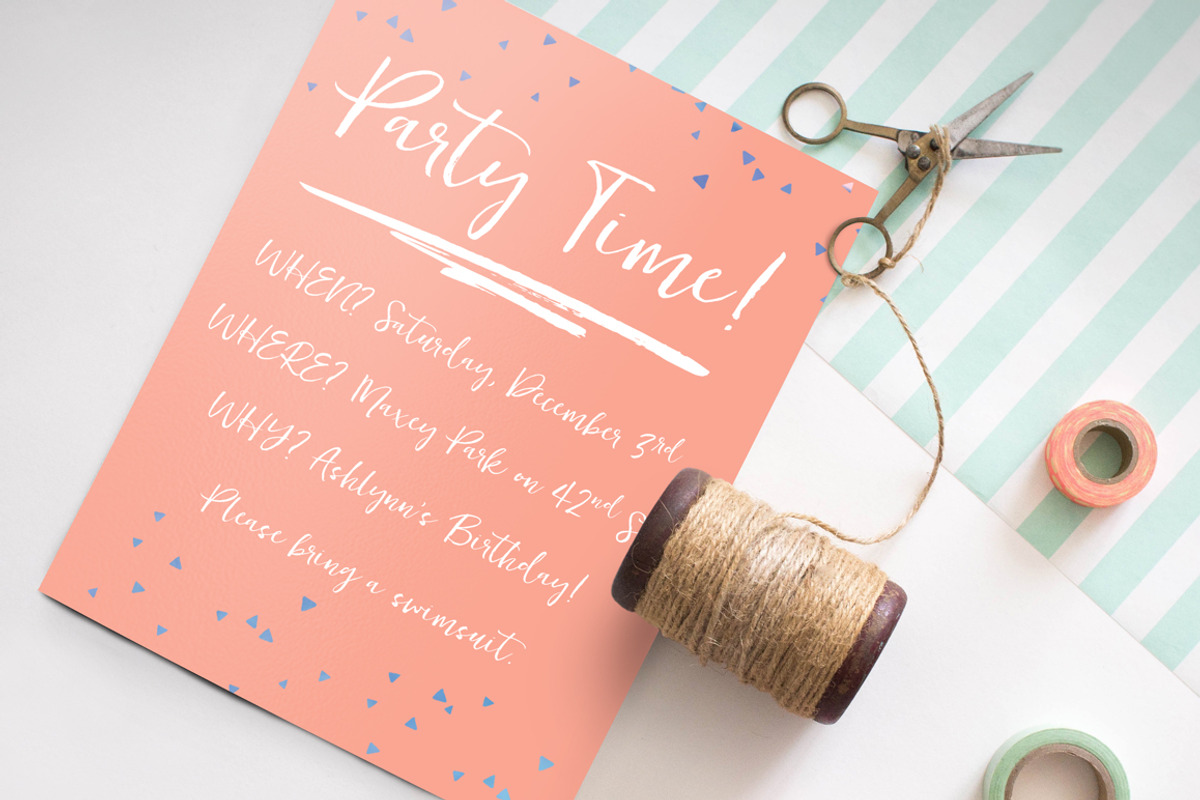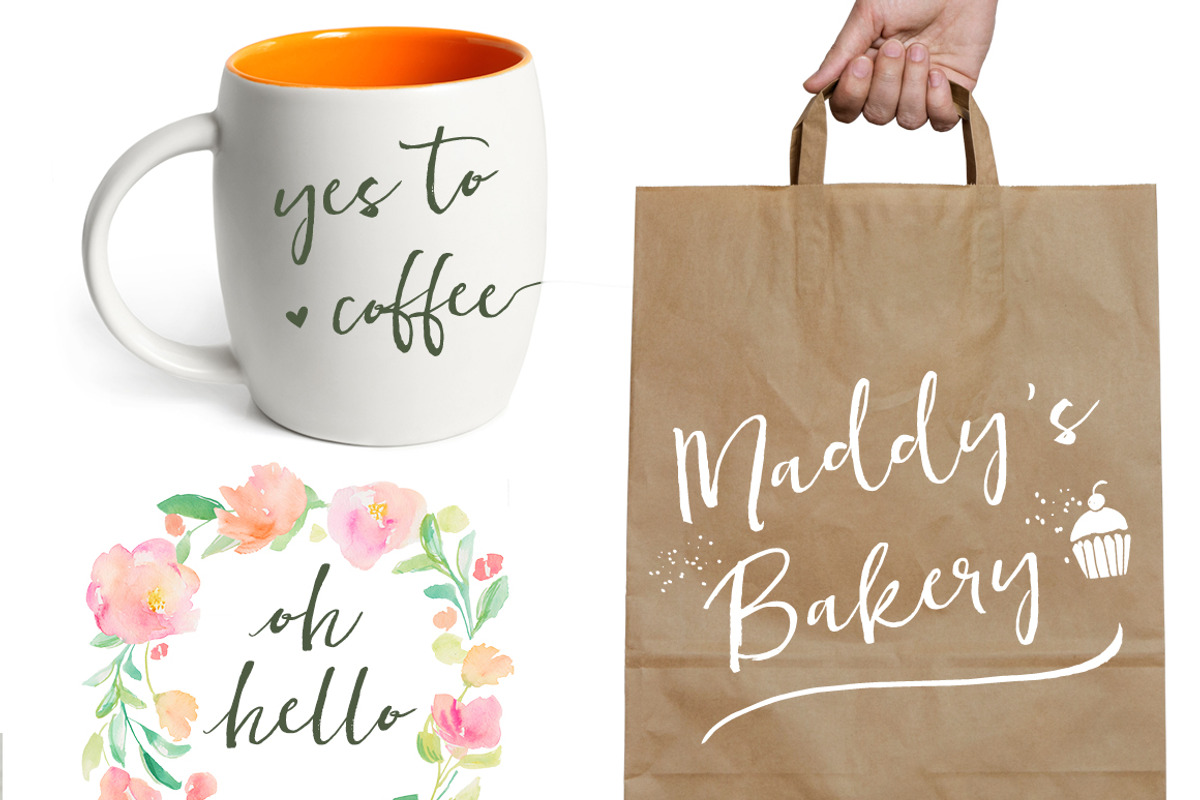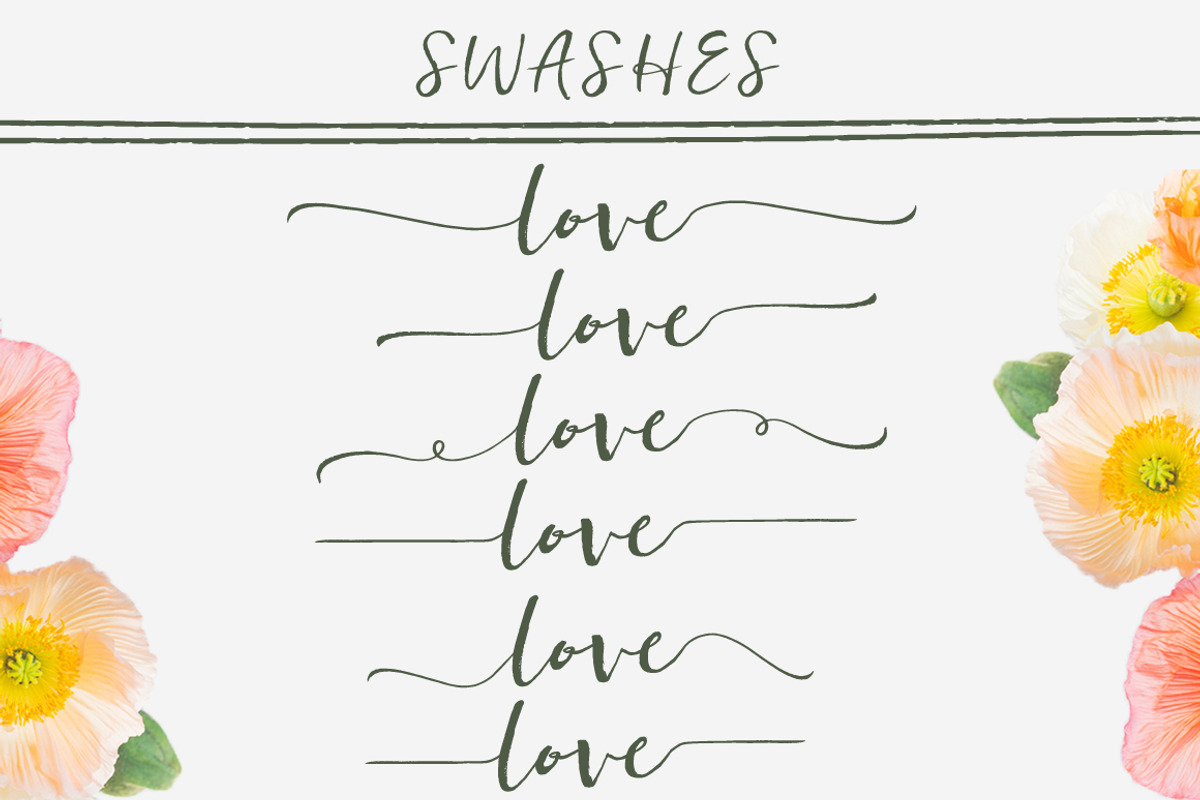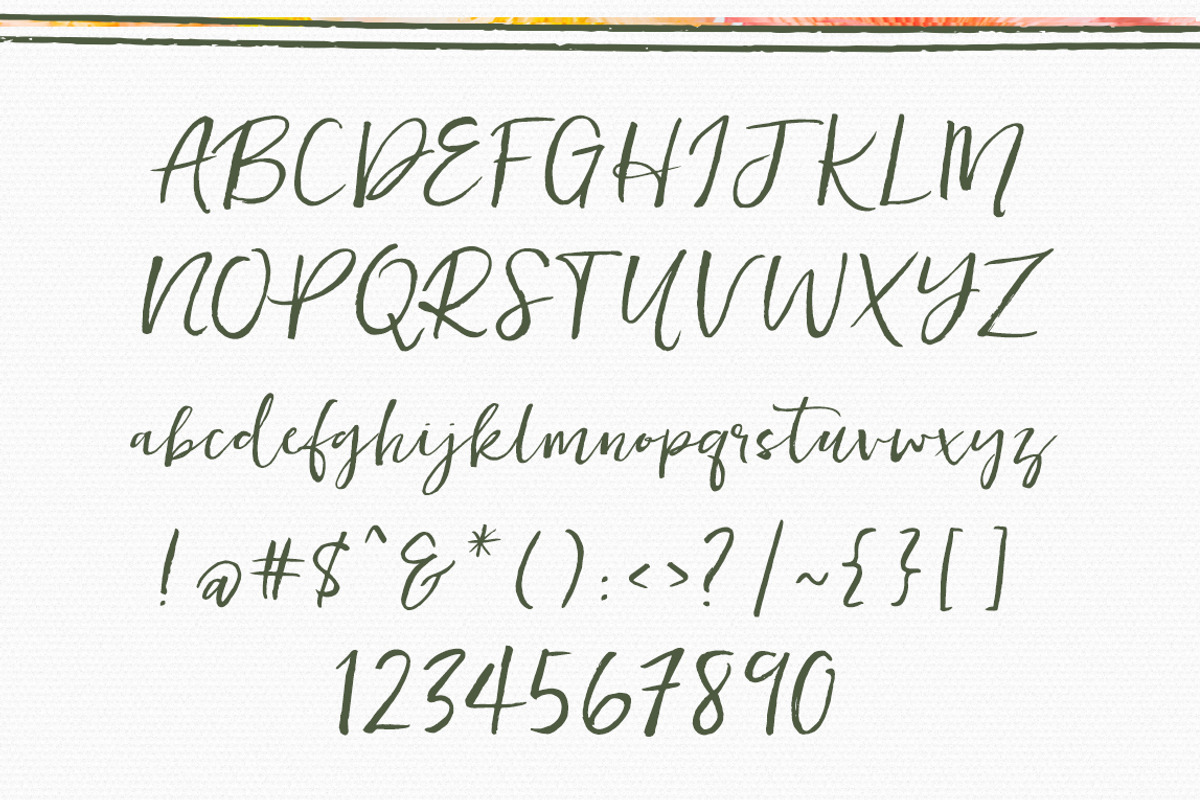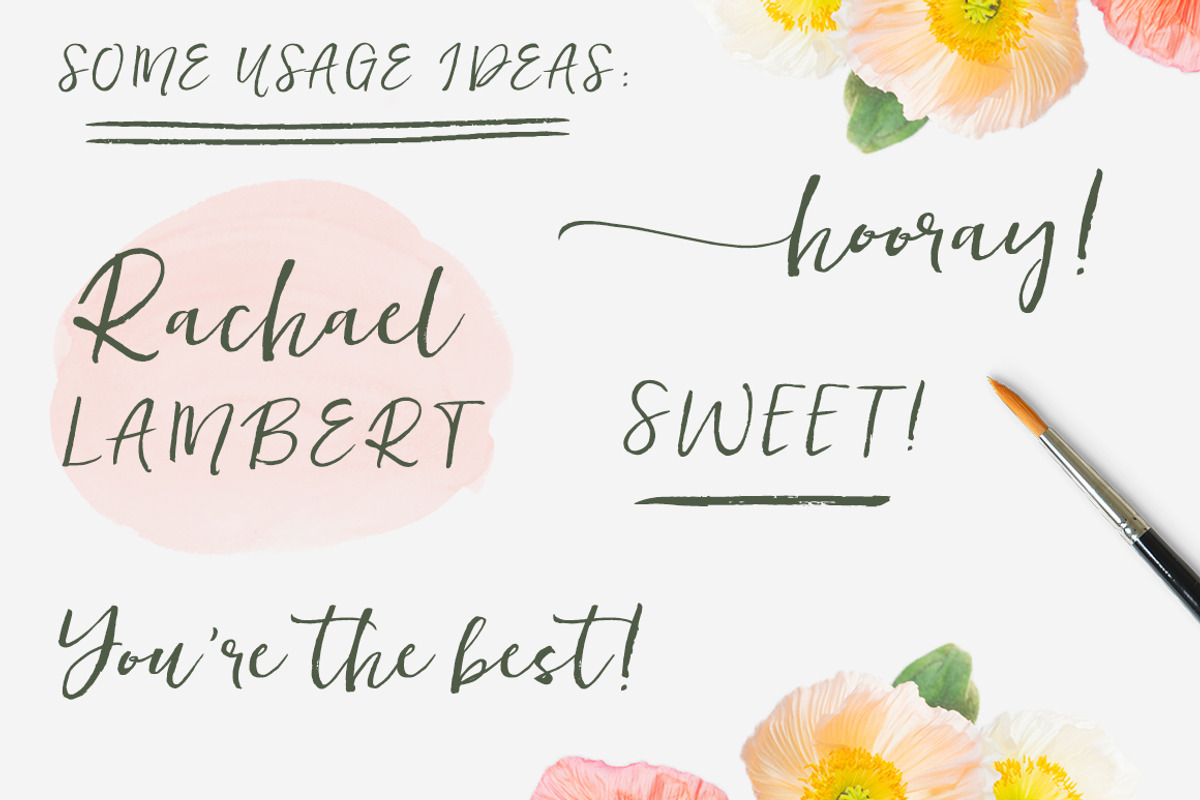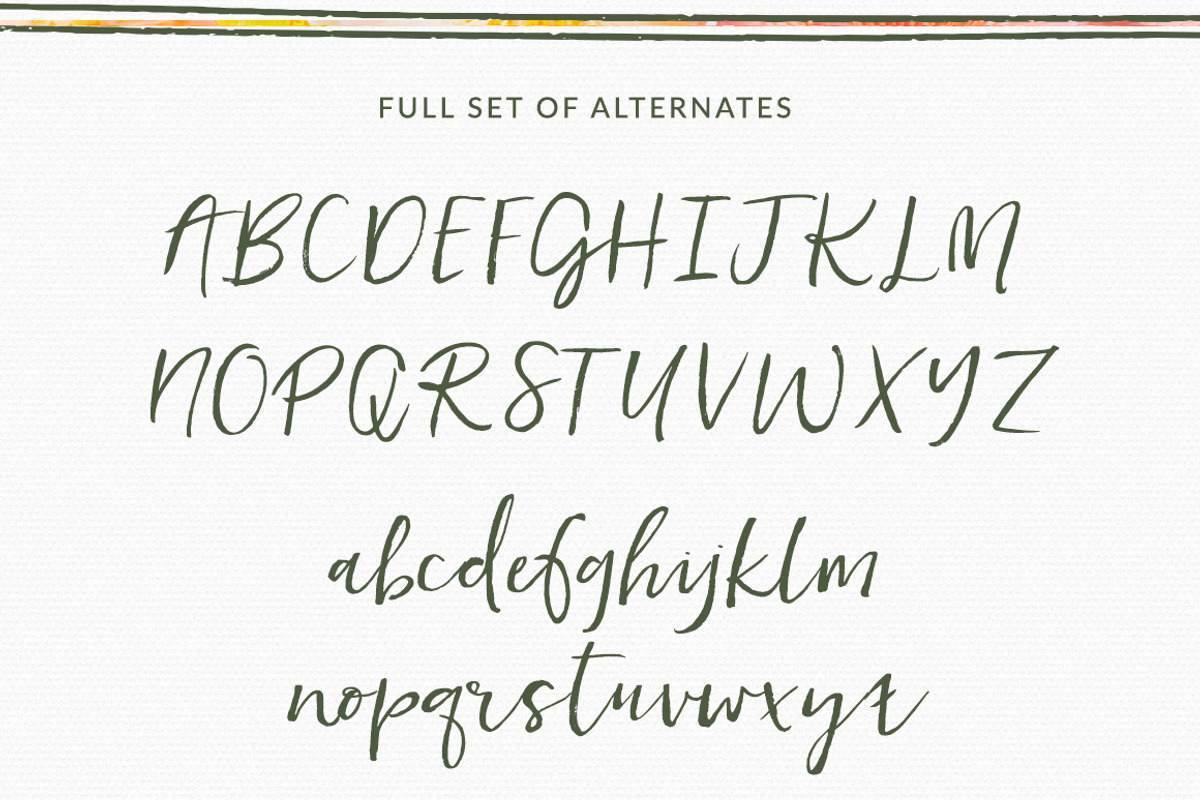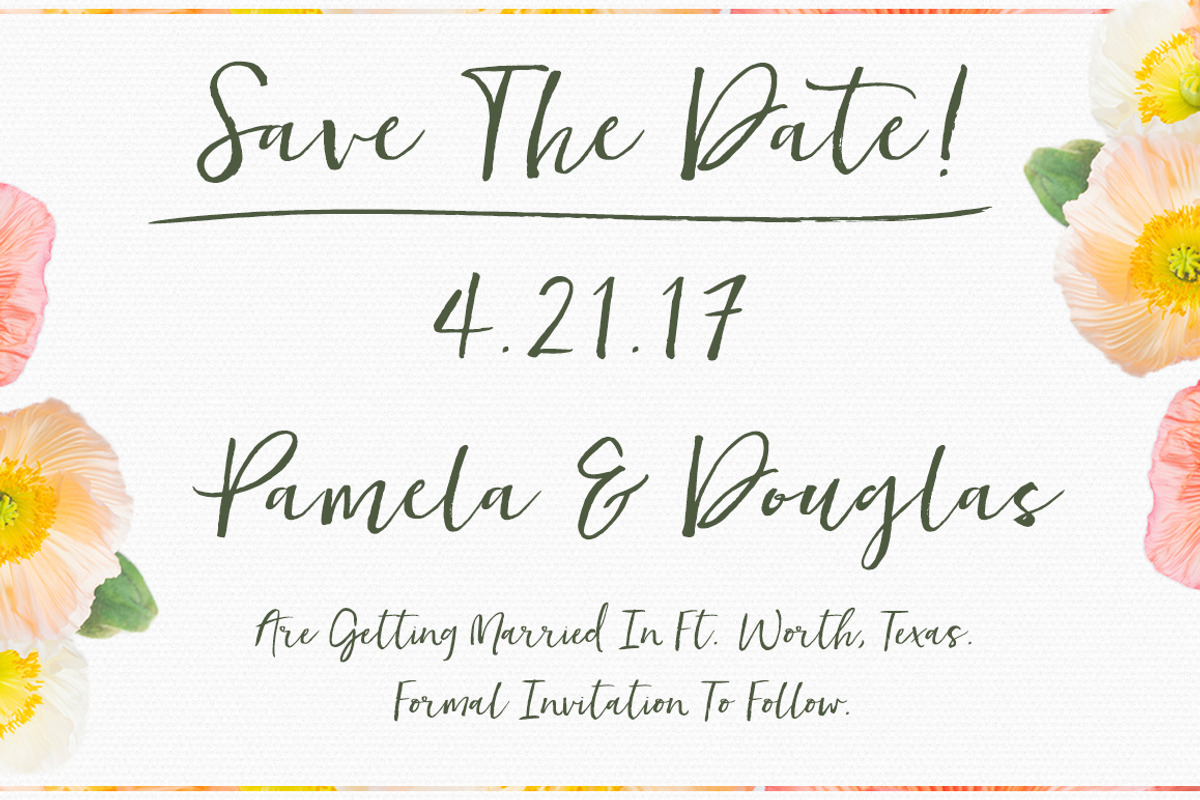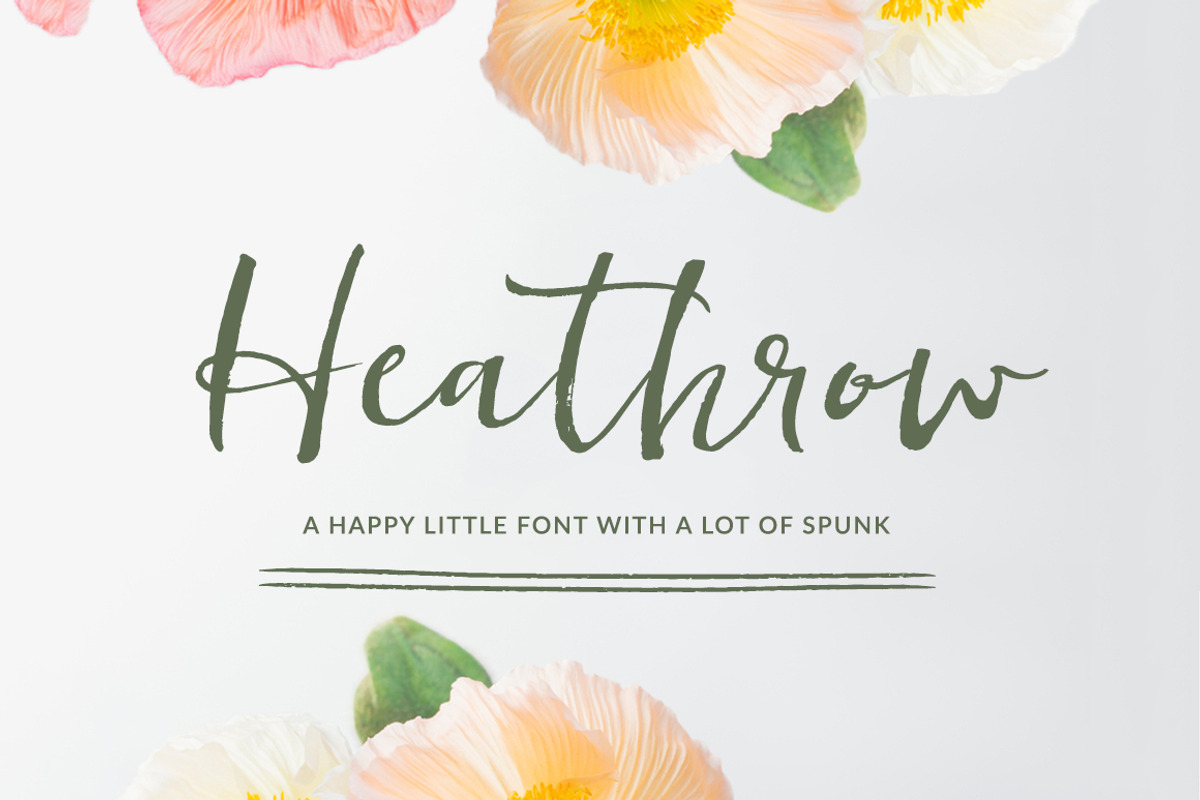
Heathrow Font
Heathrow Font by Angie Makes is a font selected for branding, posters, packaging, typography.
- The Heathrow family includes a complete set of alternate letterforms for both upper and lowercases.
- Stylistic Alternates, Ordinals, and Contextual Alternates all included.
- Meet Heathrow, a happy, little script font with a lovely hand-brushed texture, alternates, swashes, and extras galore.
- Heathrow Alternates - For those who prefer to use the alternate characters in a separate font.
- Opentype features include contextual alternates for double letters and unique pairs (bb, cc, ll, tt, th, etc), stylistic alternates, and ord
- Use the Heathrow swashes font to manually add swashes to the beginnings and ends of your lowercase letters.
Heathrow Font by Angie Makes fits naturally into Branding, posters, packaging, typography.